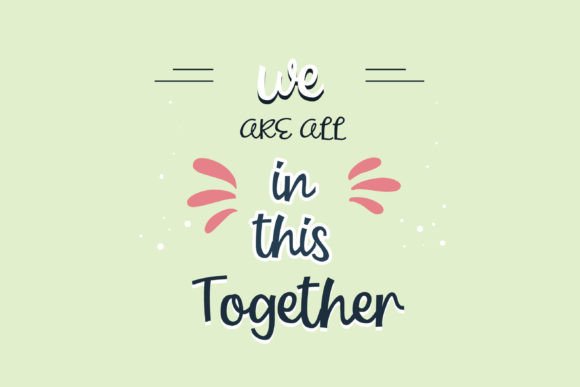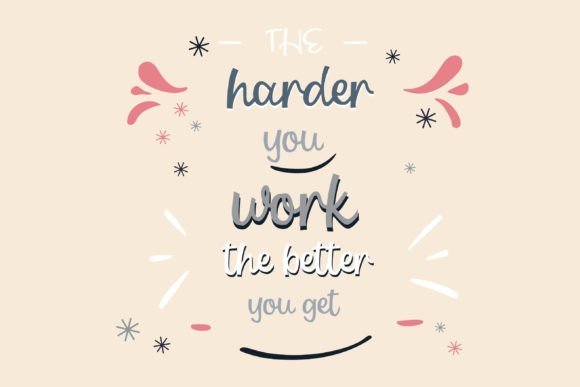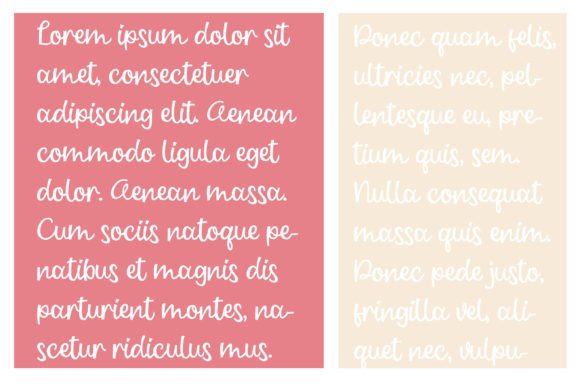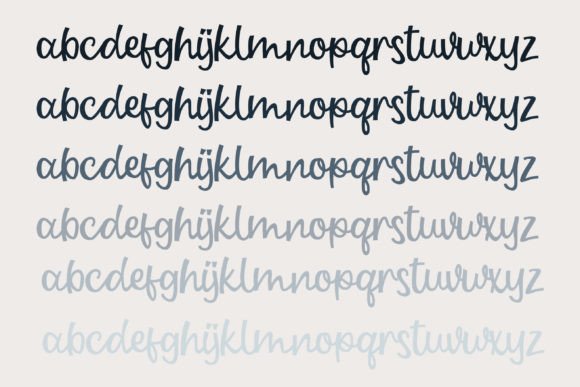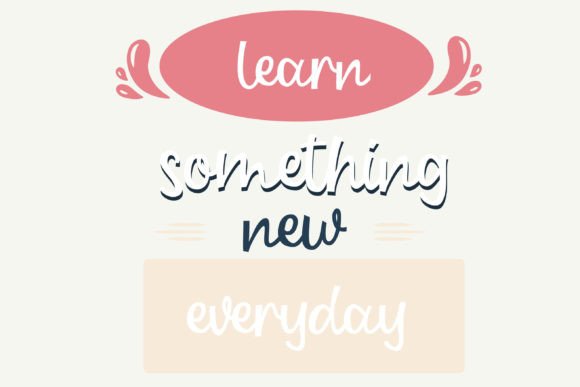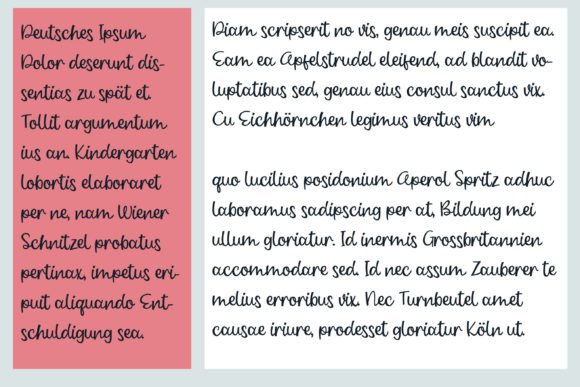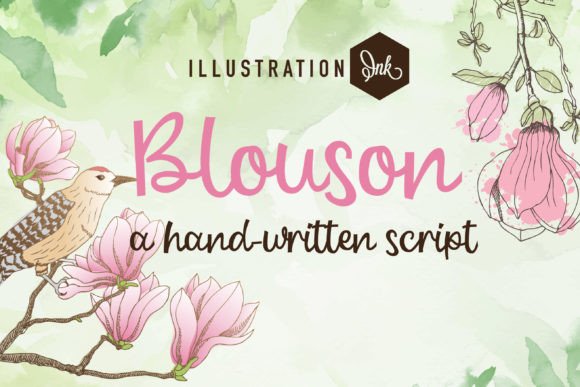
Blouson Font: Elevate Your Designs with a Casual Cursive Script
Are you looking for a font that adds a touch of elegance and sophistication to your designs? Look no further than the Blouson Font, a beautiful hand-written script that is perfect for a wide range of projects. This casual cursive font features print-like uppercase letters, making it a versatile choice for designers and crafters alike.
What is Blouson Font?
Blouson Font is a unique and stylish hand-written script that is designed to give your designs a personal and creative touch. With its casual cursive style and print-like uppercase letters, this font is perfect for adding a touch of elegance and sophistication to any project. Whether you’re working on a logo, invitation, or social media post, Blouson Font is sure to make your design stand out.
Key Features of Blouson Font
So, what makes Blouson Font so special? Here are just a few of its key features:
- Hand-written script: Blouson Font is a genuine hand-written script, giving it a personal and unique touch.
- Casual cursive style: The font features a casual cursive style that is perfect for adding a touch of elegance to your designs.
- Print-like uppercase letters: The print-like uppercase letters make Blouson Font a versatile choice for a wide range of projects.
- Gorgeous typographic: The font offers gorgeous typographic that is perfect for making a statement with your designs.
Blouson Font is a versatile font that is perfect for a wide range of projects, including:
- Logos & branding: Use Blouson Font to create a unique and memorable logo that reflects your brand’s personality.
- Invitations: Add a touch of elegance to your invitations with Blouson Font.
- Stationery: Use Blouson Font to create beautiful stationery that makes a lasting impression.
- Wedding designs: Blouson Font is perfect for creating stunning wedding designs, including invitations, programs, and more.
- Social media posts: Use Blouson Font to add a touch of personality to your social media posts.
- Advertisements: Blouson Font is perfect for creating eye-catching advertisements that grab attention.
- Product packaging: Use Blouson Font to create beautiful product packaging that stands out on store shelves.
- Product designs: Blouson Font is perfect for creating stunning product designs that showcase your brand’s personality.
- Labels: Use Blouson Font to create beautiful labels that add a touch of elegance to your products.
- Photography: Blouson Font is perfect for adding a touch of personality to your photography, including watermarks and captions.
- Special events: Use Blouson Font to create stunning designs for special events, including parties, conferences, and more.
Why Choose Blouson Font?
So, why choose Blouson Font for your next project? Here are just a few reasons:
- Unique and stylish: Blouson Font is a unique and stylish font that adds a touch of elegance and sophistication to any design.
- Versatile: The font is perfect for a wide range of projects, from logos and branding to social media posts and product packaging.
- Gorgeous typographic: The font offers gorgeous typographic that is perfect for making a statement with your designs.
In conclusion, Blouson Font is a beautiful hand-written script that is perfect for adding a touch of elegance and sophistication to any design. With its casual cursive style and print-like uppercase letters, this font is versatile and easy to use. Whether you’re a designer or crafter, Blouson Font is a great choice for a wide range of projects. So why wait? Download Blouson Font today and start creating stunning designs that showcase your personality and style.